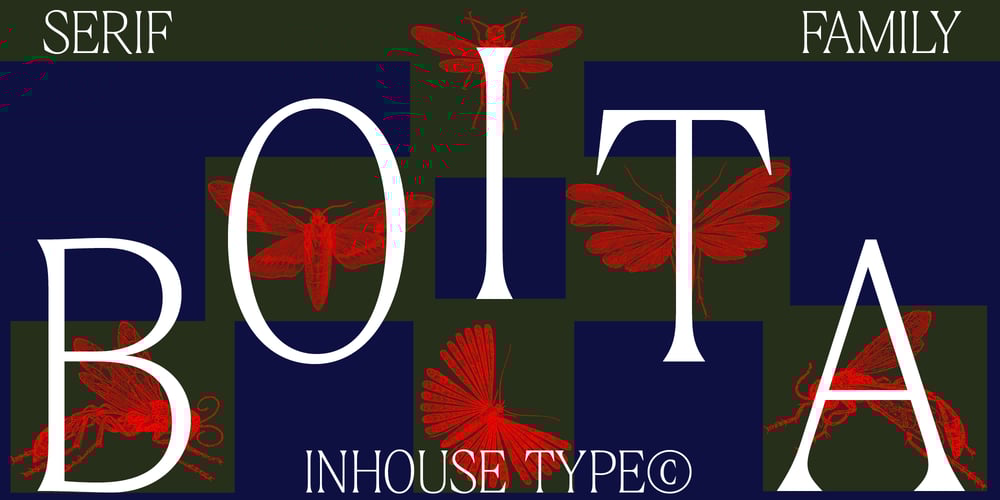
Boita
Boita font
Boita Font Family was designed by Mariya Lish and published by Inhouse Type. Boita contains 5 styles and family package options. Boita is an elegant display serif type family. Designed for high impact, it features generous x-height, high contrast, confident curves and sharp serifs. Its condensed proportions allow for a great impact even in limited spacial situations. Boita forms “smooth as velvet” texture on the page, whilst remaining distinctly confident. It supports both Latin and Cyrillic scripts.